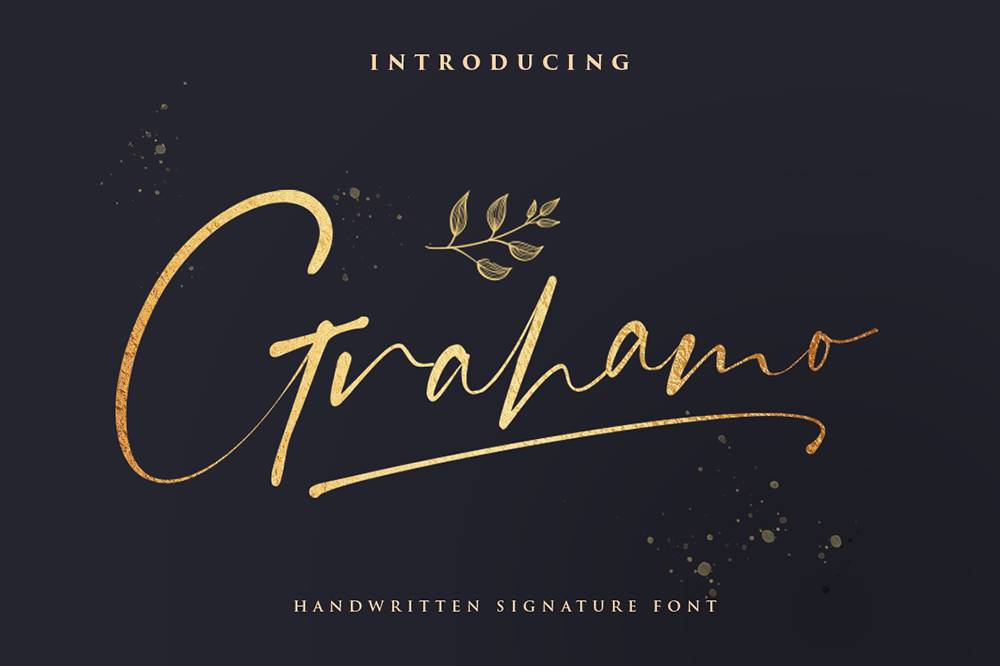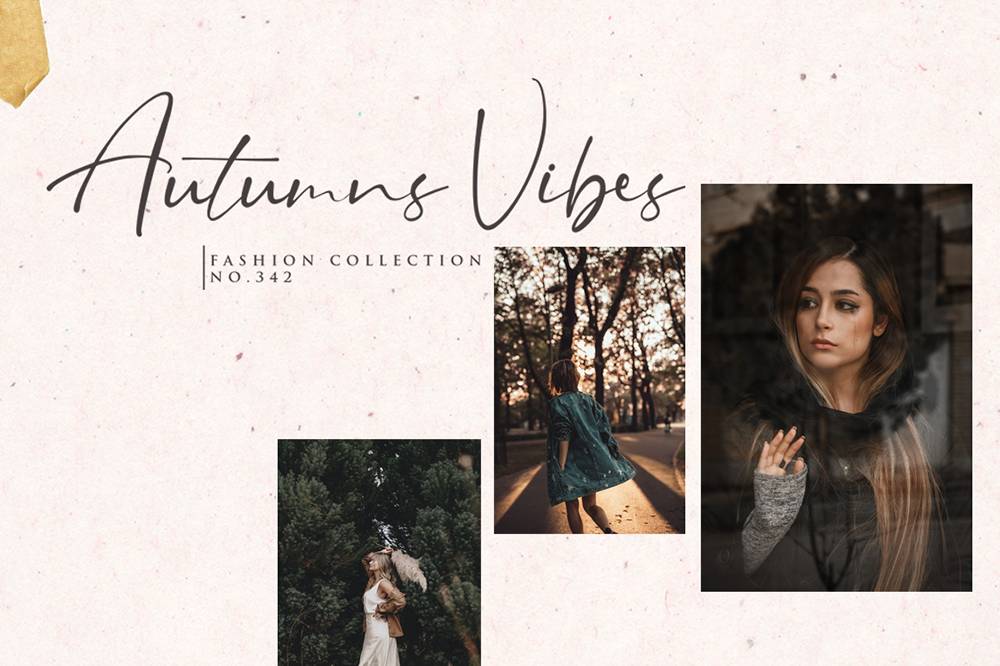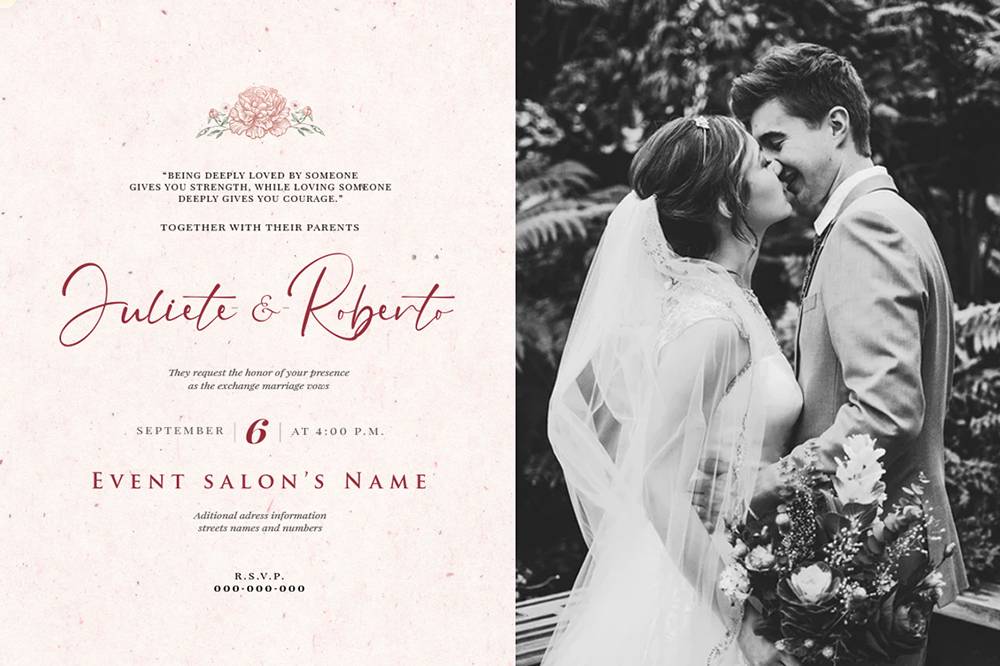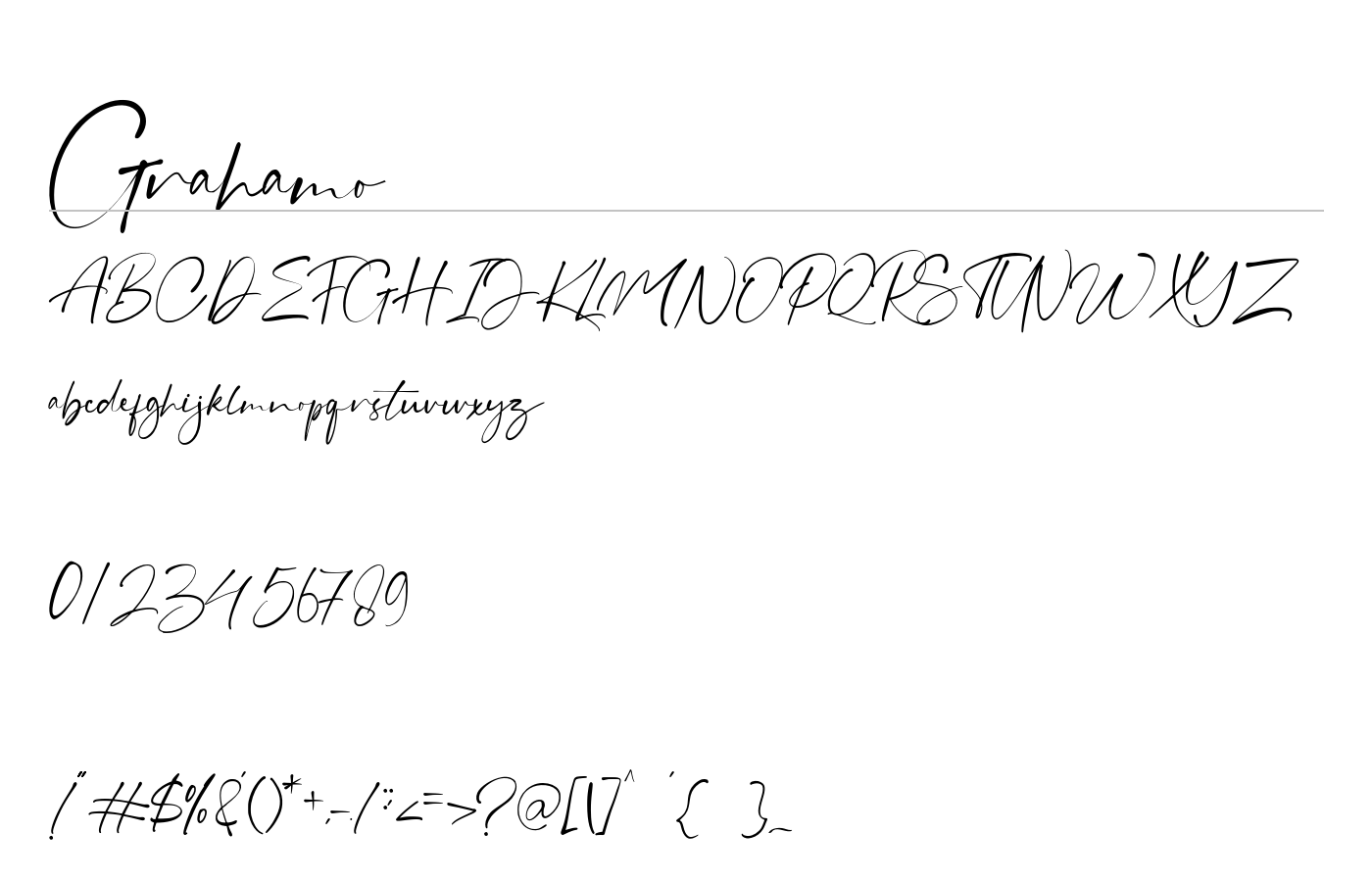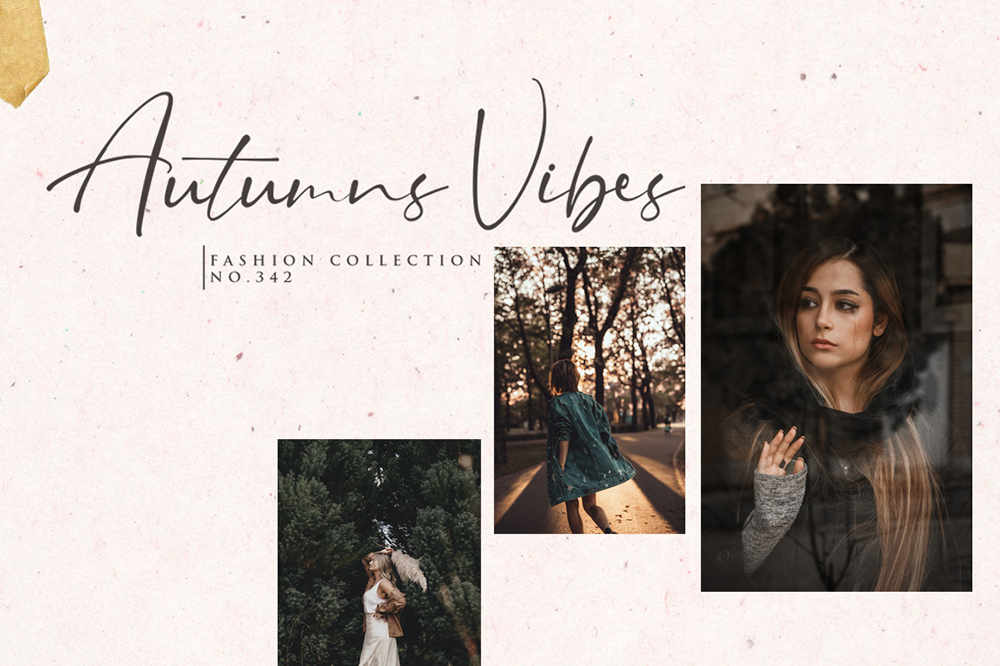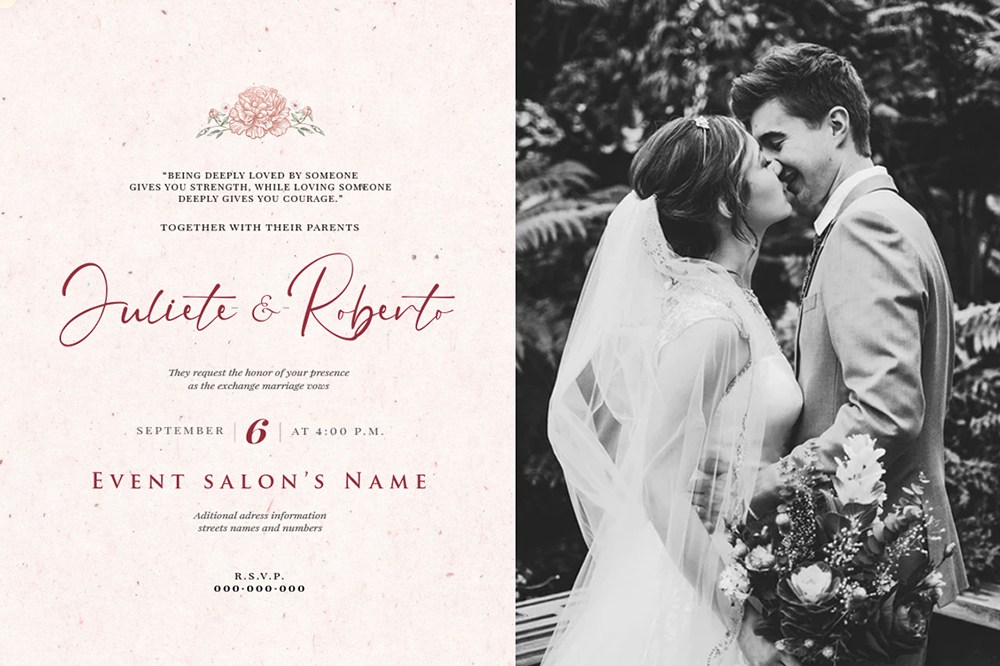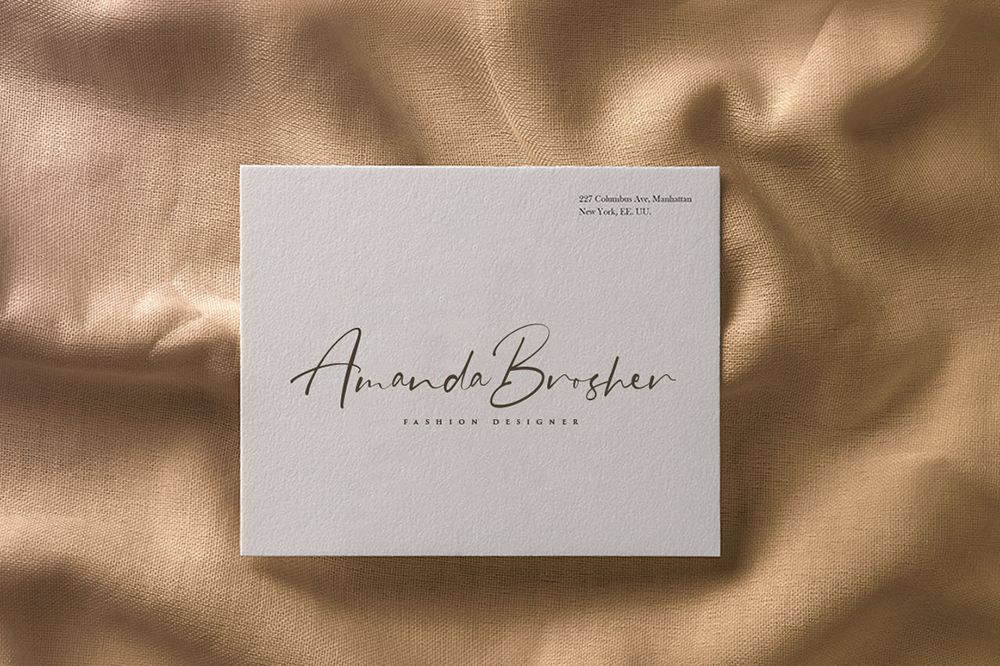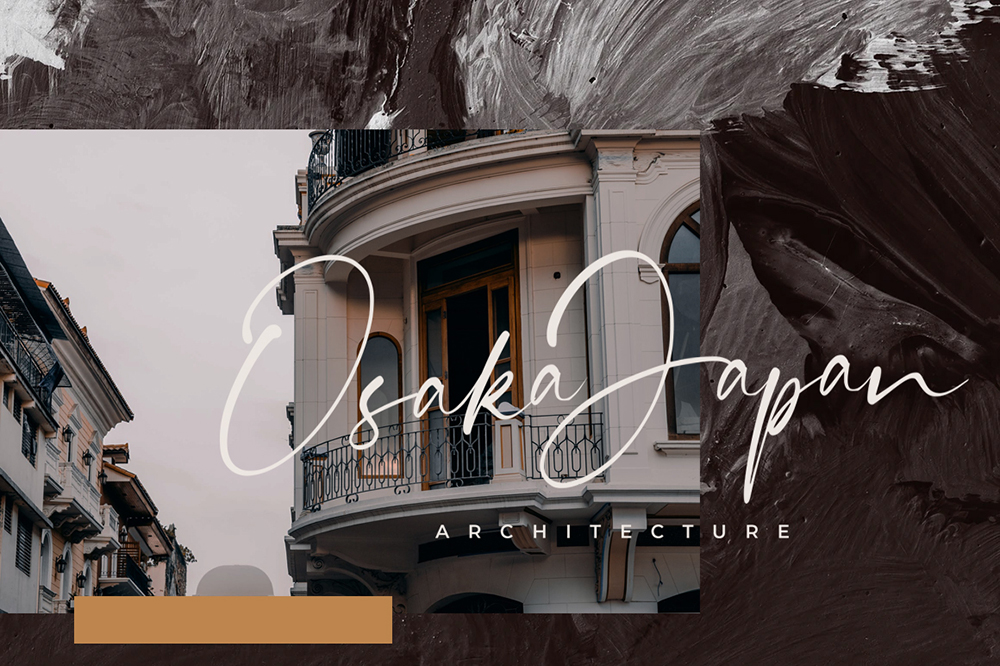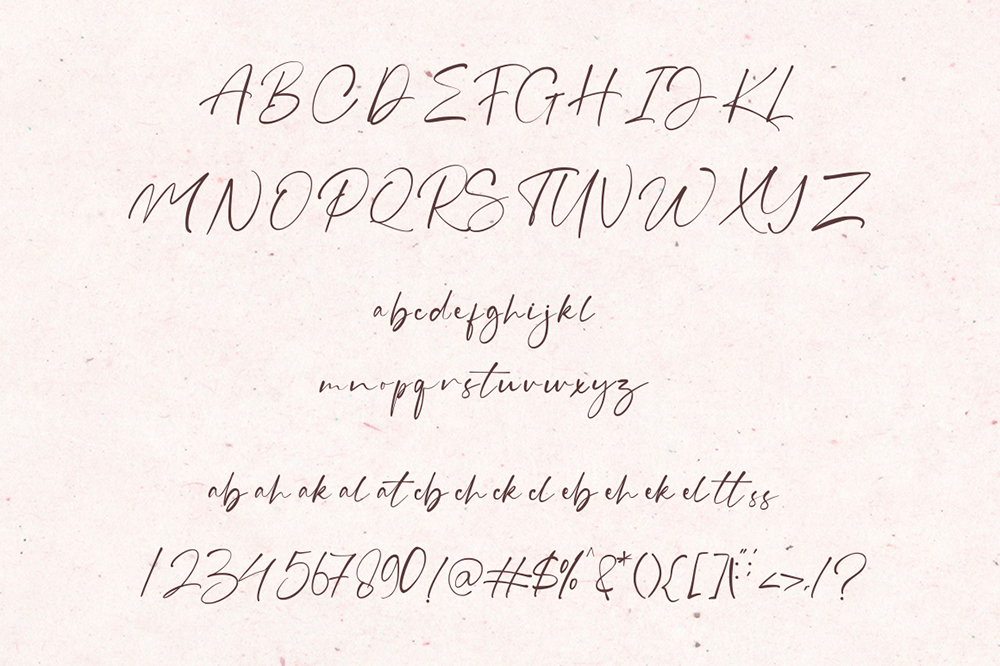
Grahamo is an elegant luxury script font that features delicate, flowing strokes and a refined, handwritten style. Its slender, slightly irregular lines offer a sophisticated yet approachable feel, making it ideal for upscale branding, wedding invitations, and stylish editorial projects. This font’s graceful character and airy spacing evoke a modern sense of charm and exclusivity.
Grahamo – Luxury Script Font
About Grahamo – Luxury Script Font